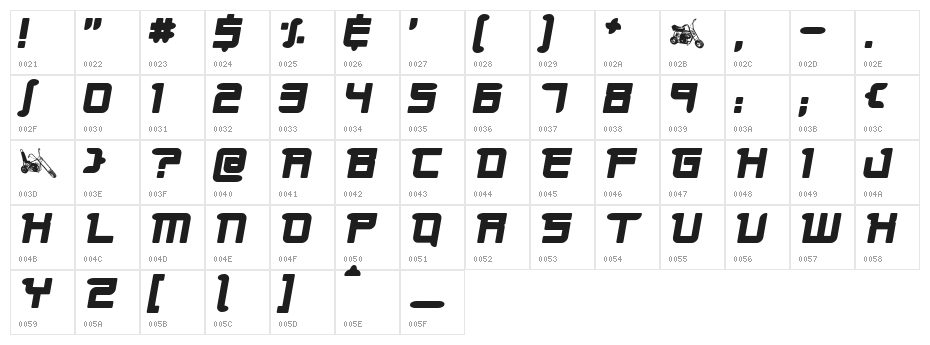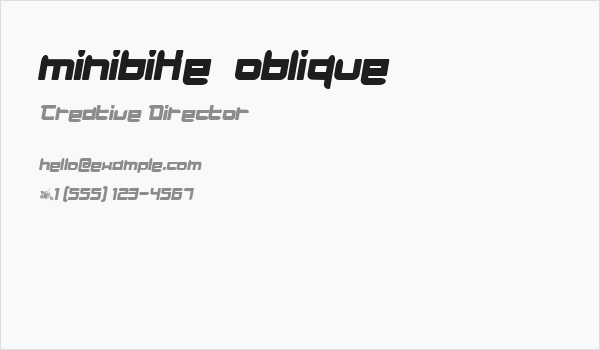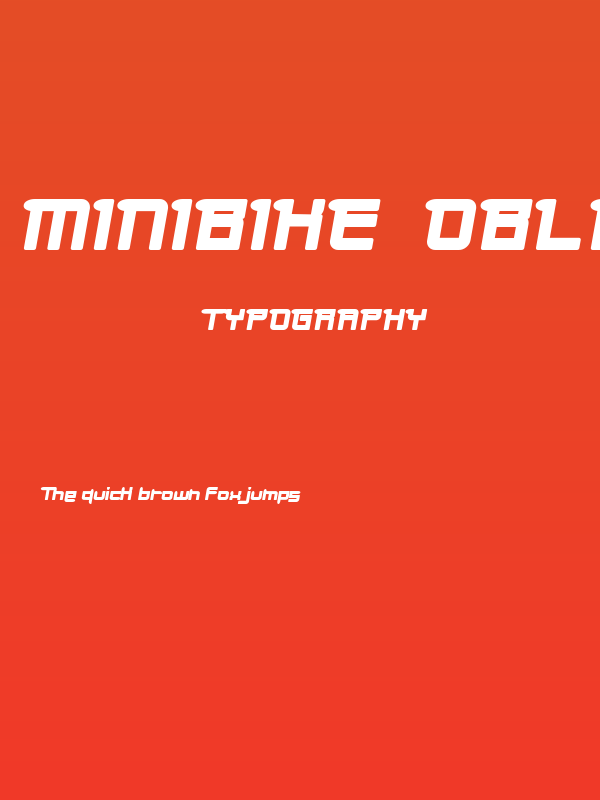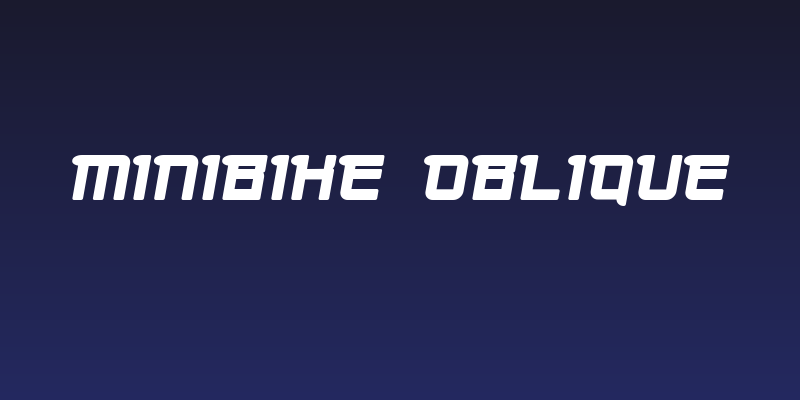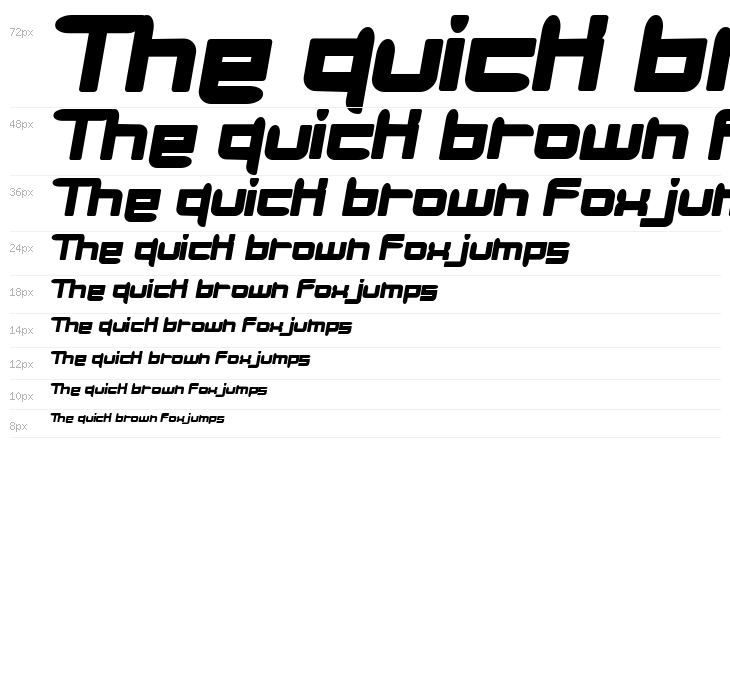
minibike oblique Font
minibike oblique Description
This font features a bold, dynamic style with a distinct oblique slant, giving it a sense of motion and speed. The characters are uniformly thick, providing a strong visual impact. The rounded edges soften the overall appearance, making it approachable while maintaining a modern aesthetic. The uppercase and lowercase letters are consistent in style, with a slight variation in size and form that adds visual interest. The numerals and special characters follow the same design principles, ensuring a cohesive look across all elements. This font is particularly suited for projects that require a bold statement or a futuristic feel.
| Use Case | Logos, Headlines, Branding |
| Proposed Projects | Ideal for branding, sports team logos, automotive designs, and dynamic advertising campaigns. |